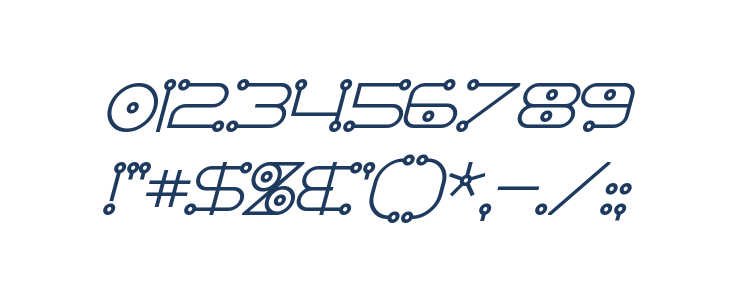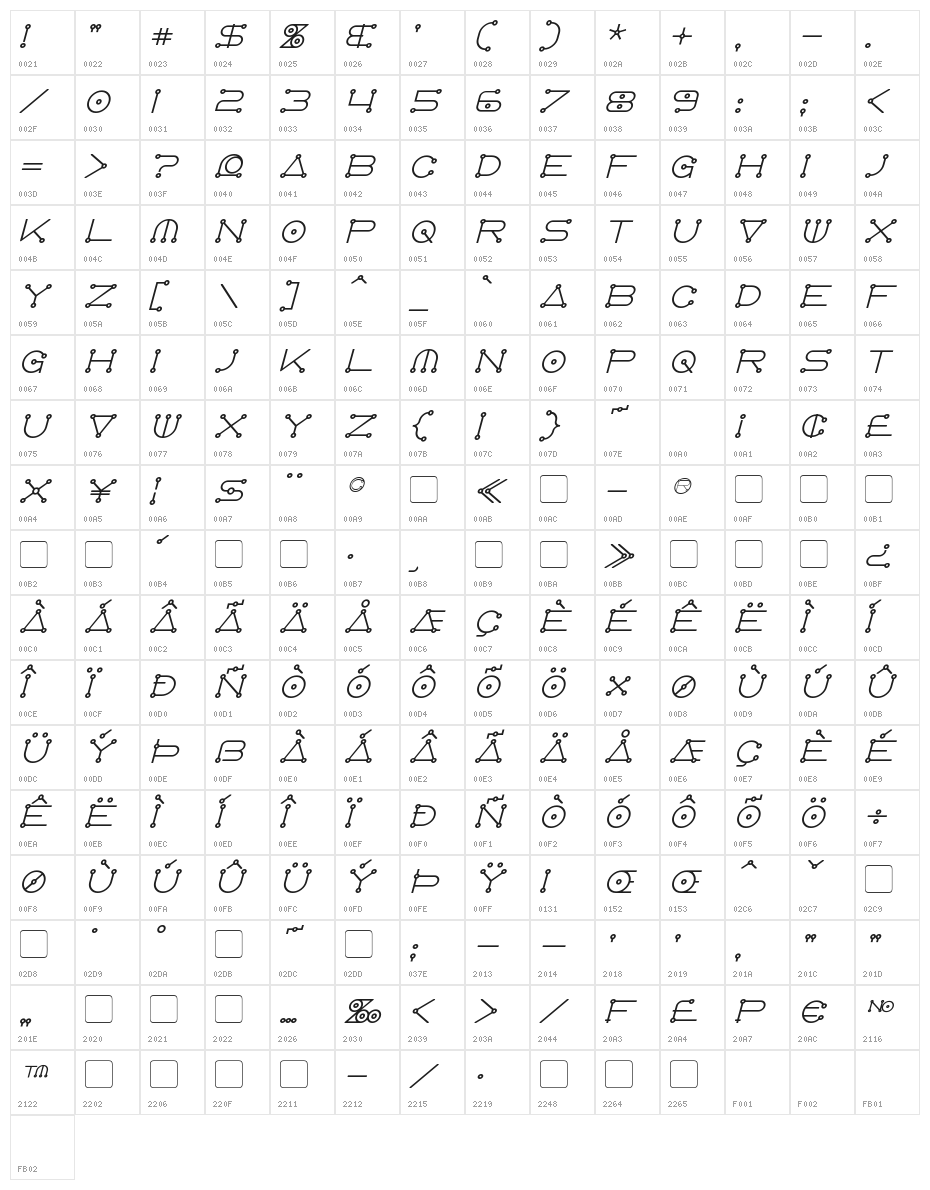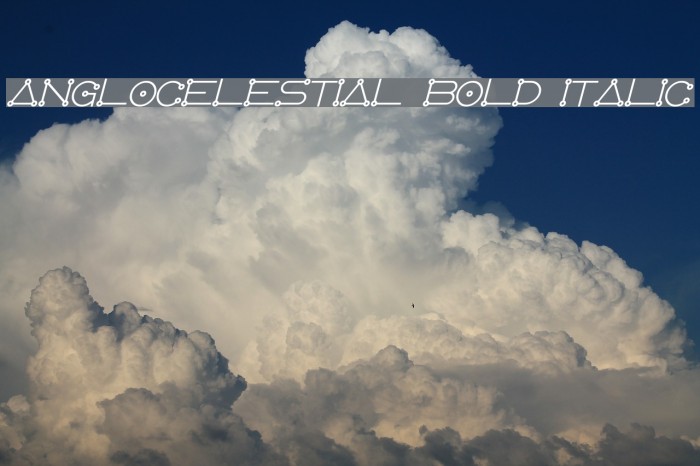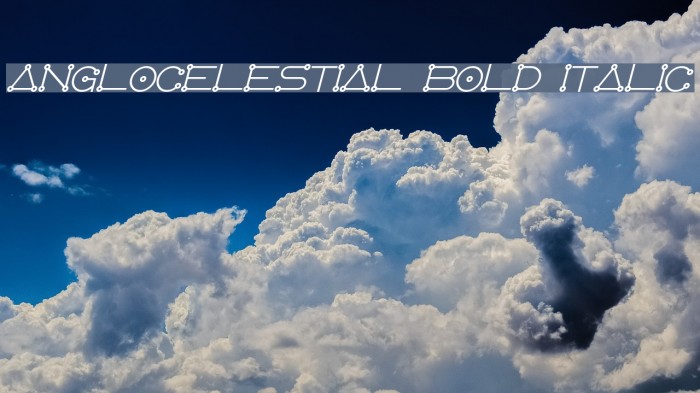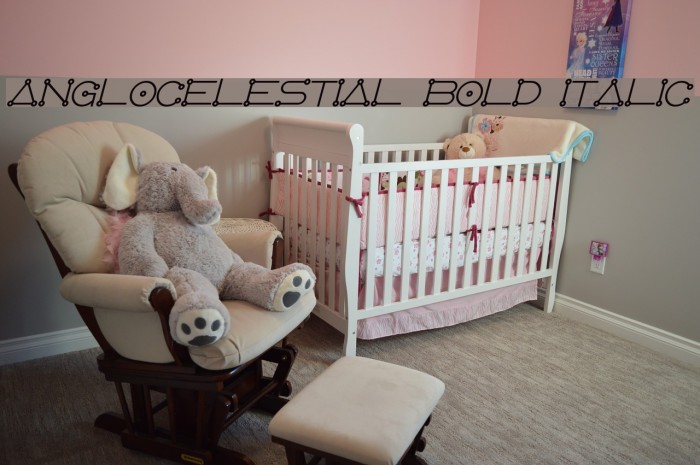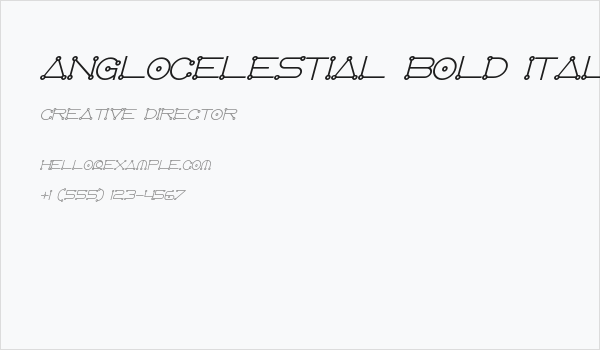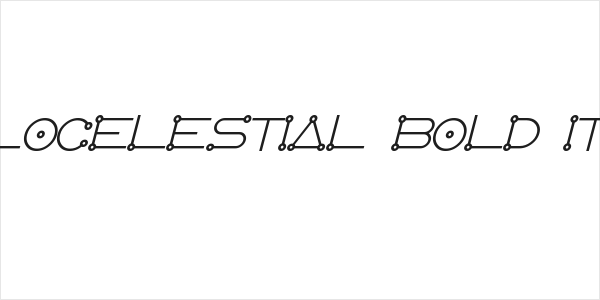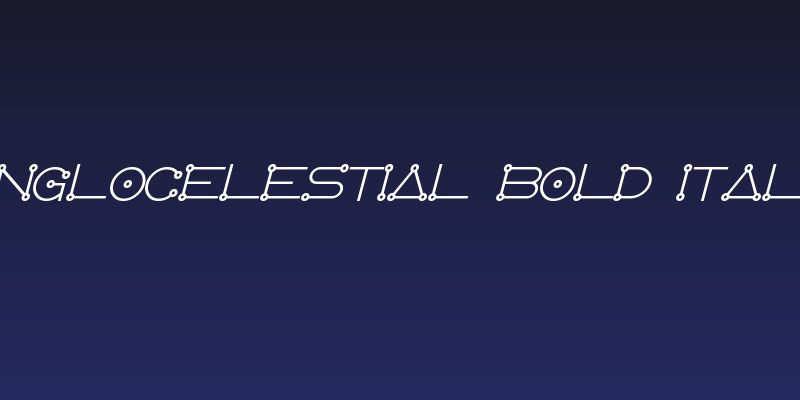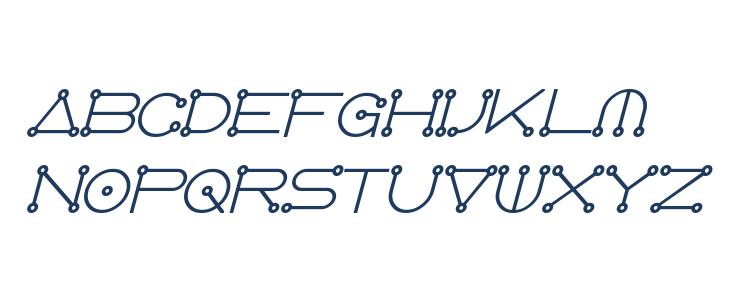
AngloCelestial Bold Italic Font
AngloCelestial Bold Italic Description
This font features a futuristic and mechanical design, characterized by its unique use of dots and lines to form each character. The letters are constructed with a series of connected circles and straight lines, giving it a circuit-like appearance. The style is bold and italic, adding a dynamic and energetic feel to the text. The uppercase and lowercase letters maintain a consistent design, with the same structural elements applied to numbers and special characters. This font stands out due to its distinctive and unconventional approach, making it ideal for projects that require a modern and technological aesthetic.